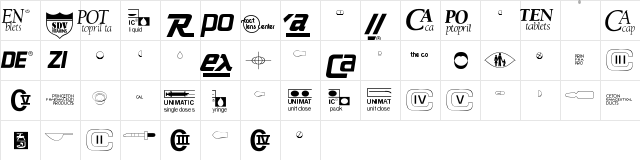
MedicalPharmaceuticalP02 Medium
Design Context for MedicalPharmaceuticalP02 Typeface
MedicalPharmaceuticalP02 is a composed and adaptable typeface that performs quietly and consistently across a wide range of design contexts.